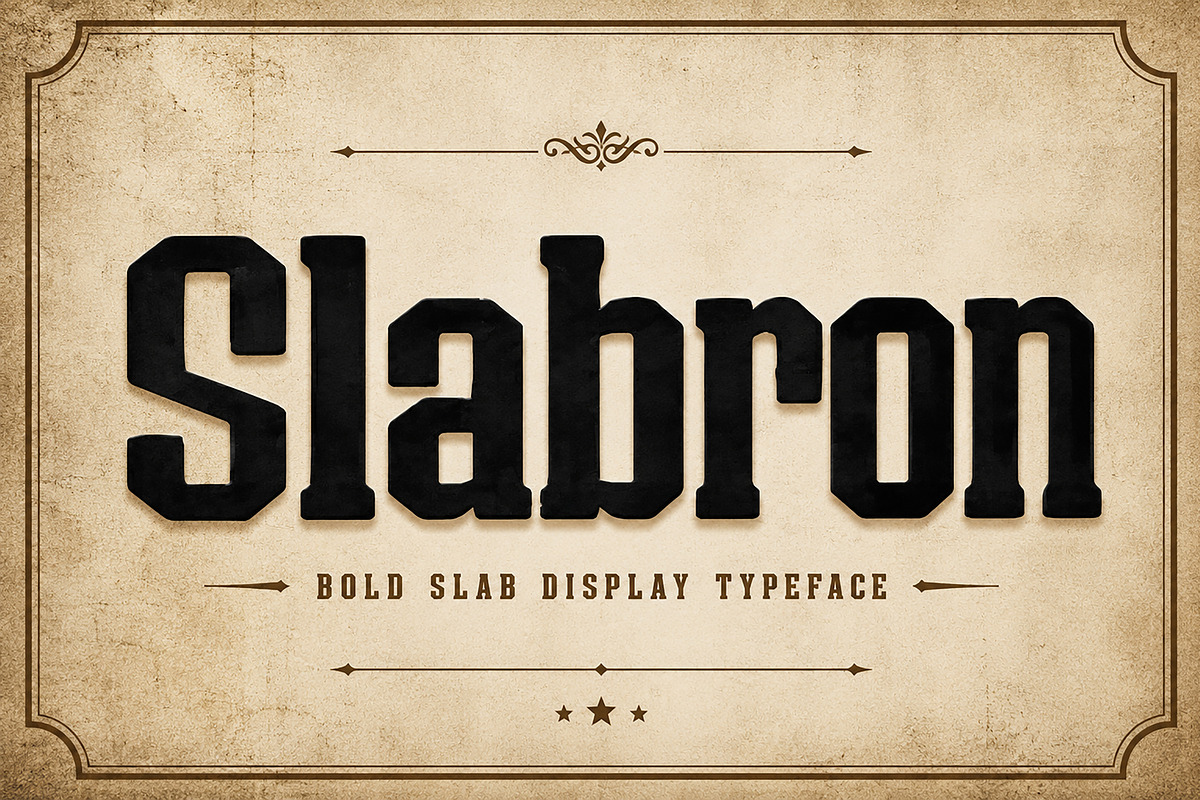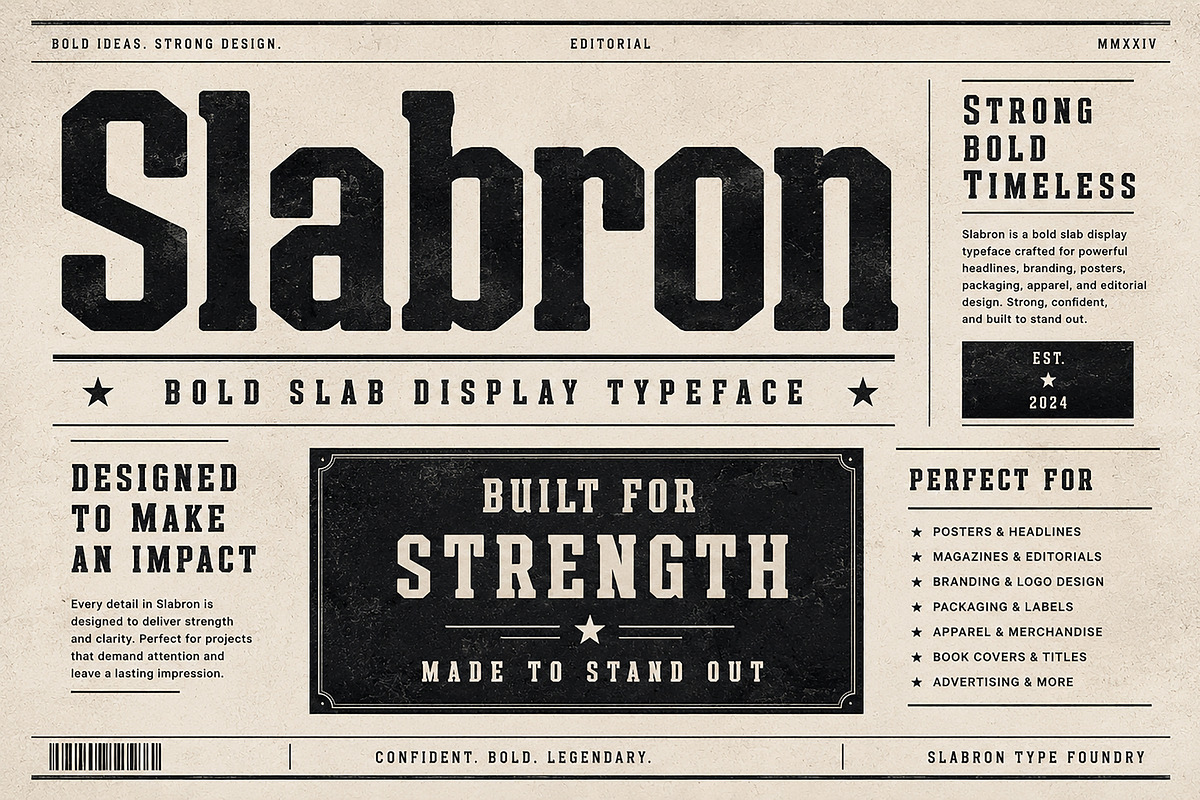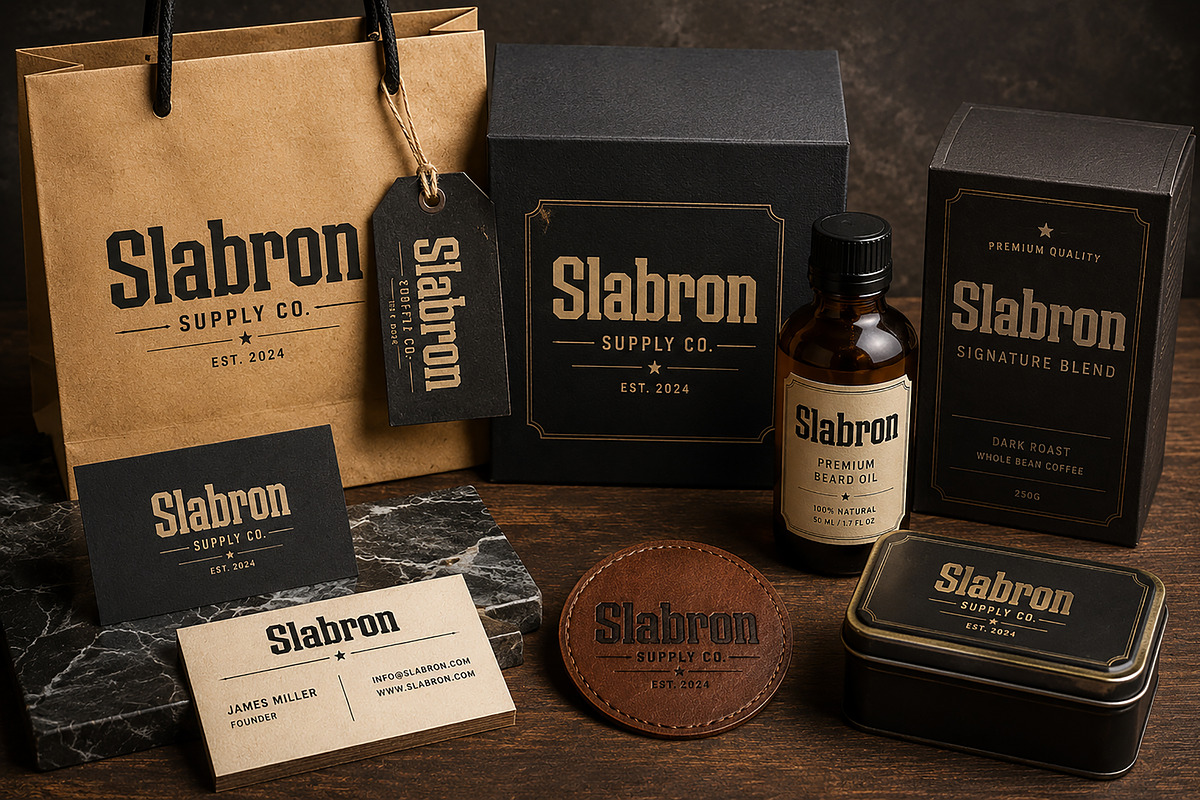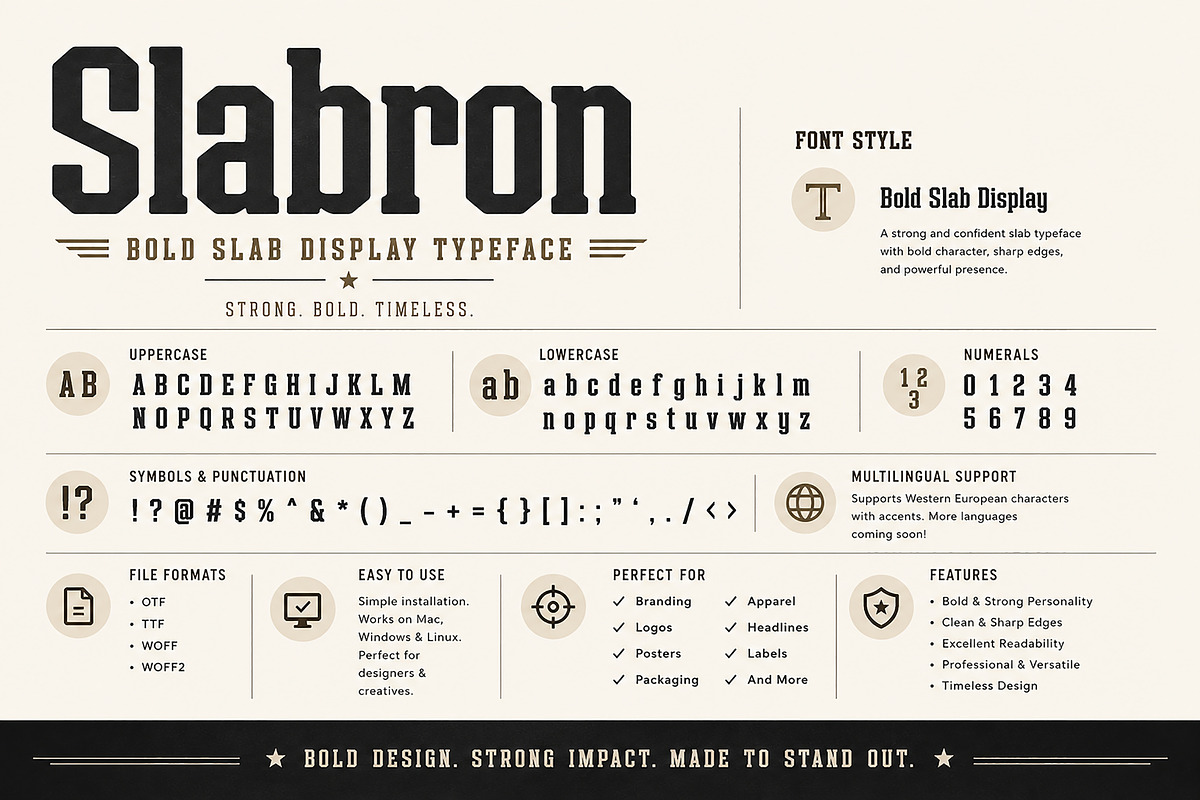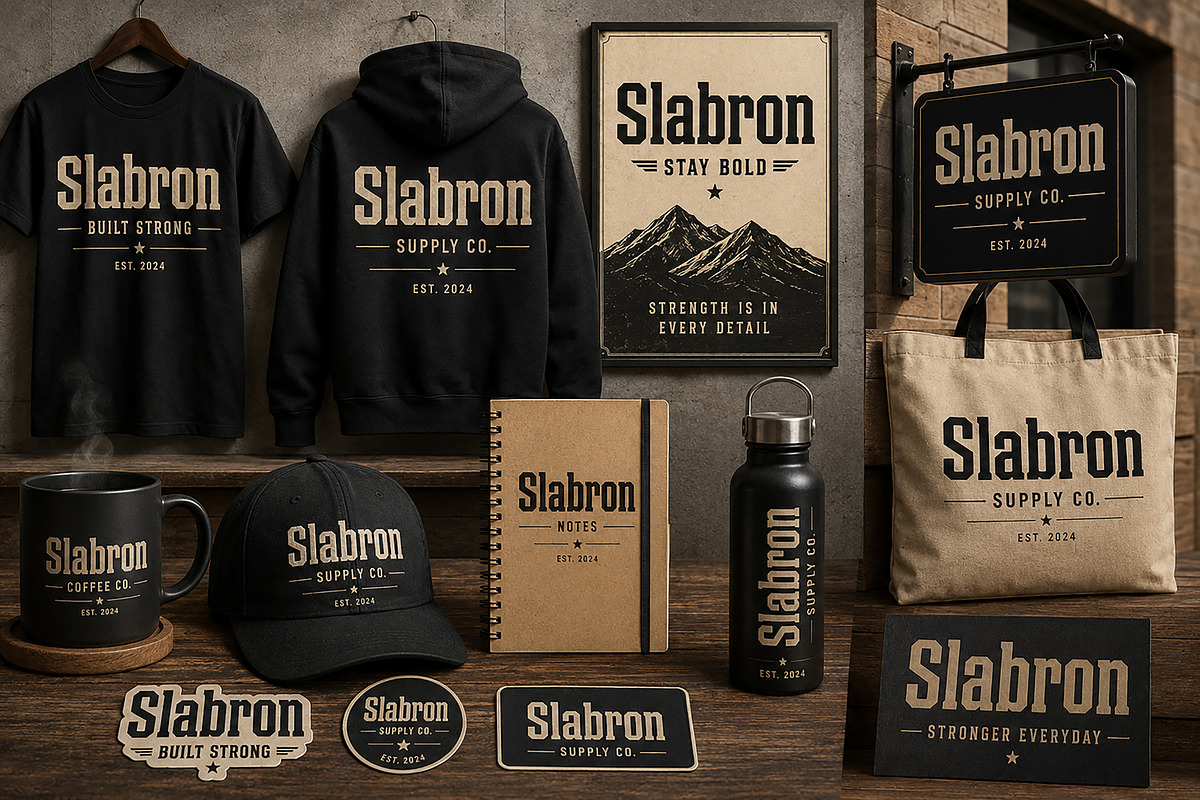
Slabron – Bold Slab Display
Slabron – Bold Slab Display Typeface
Slabron is a bold slab display typeface crafted to make a powerful statement. With its strong geometric structure, sharp edges, and vintage-inspired personality, this font is perfect for designs that demand confidence, impact, and readability.
Whether you're creating logos, branding, packaging, posters, apparel, signage, book covers, or editorial headlines, Slabron delivers a timeless look with a modern edge. Its bold character makes it an excellent choice for both commercial and creative projects.
Designed for versatility, Slabron works beautifully across print and digital media, helping your designs stand out with a bold, professional appearance.
Brand Identity
Product Labels
Posters
Headlines
Editorial Design
Magazine Covers
Signage
Apparel Design
T-Shirts
Hoodies
Vintage Branding
Western Style Projects
Retro Posters
Advertising
Creative Projects
Bold Slab Display Typeface
Uppercase Characters
Lowercase Characters
Symbols Included
Clean & Sharp Letterforms
High Readability
Bring strength, confidence, and timeless character to your next project with Slabron.